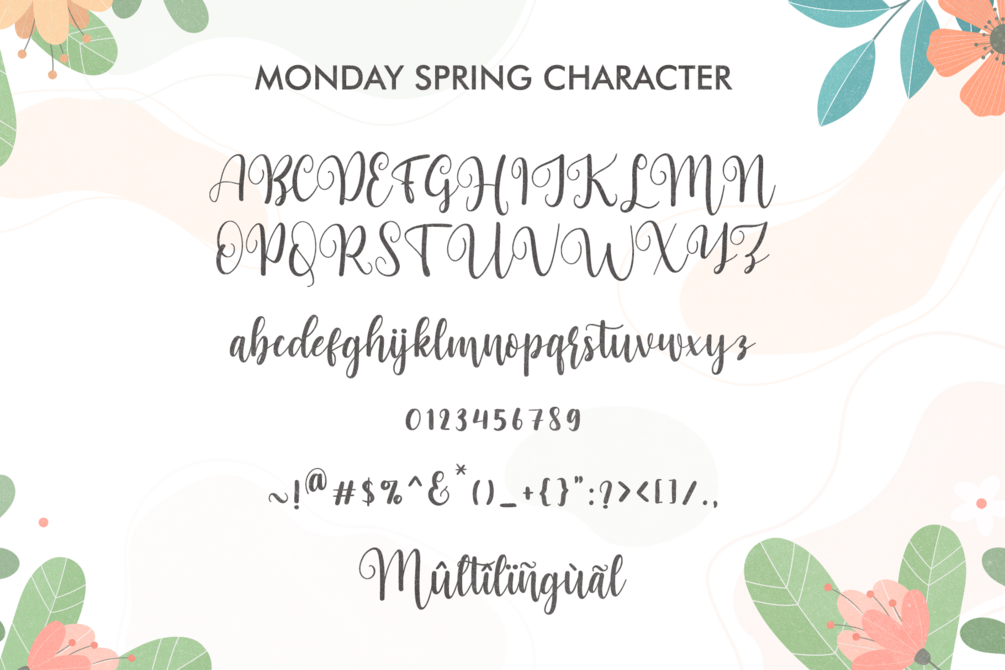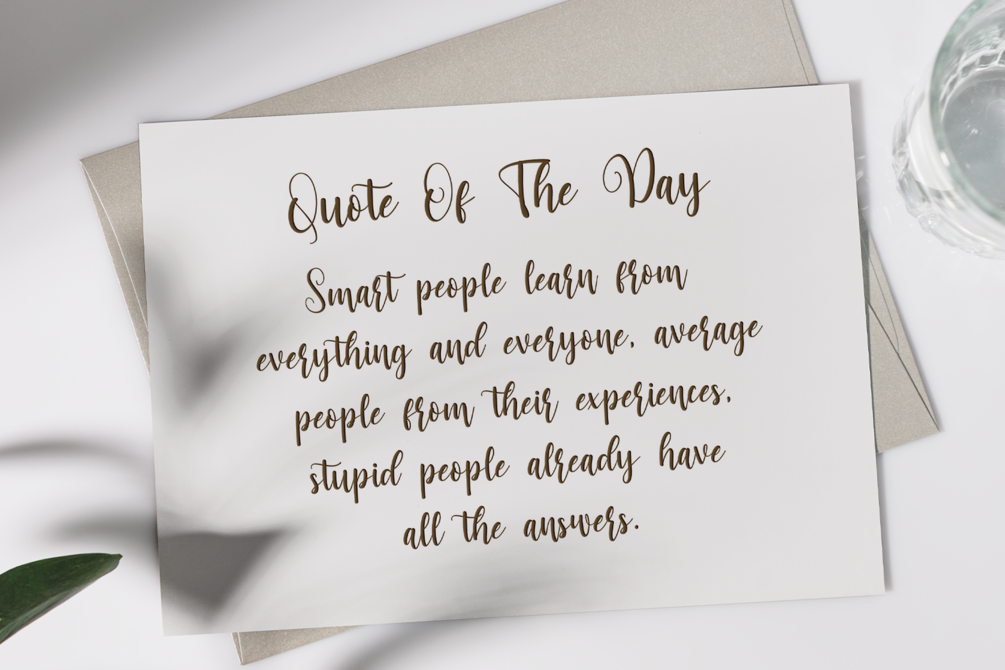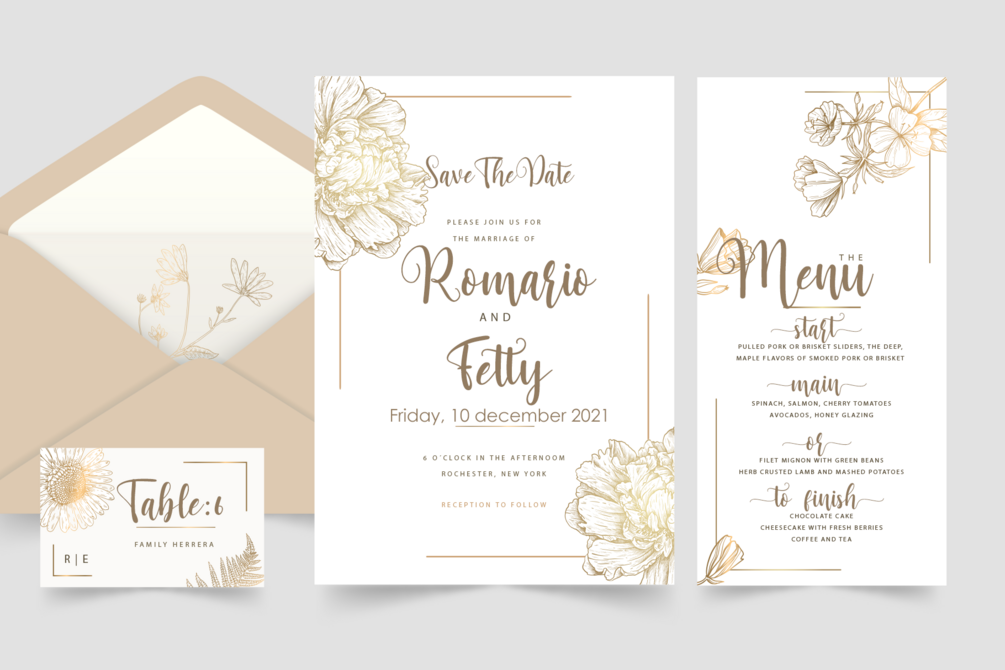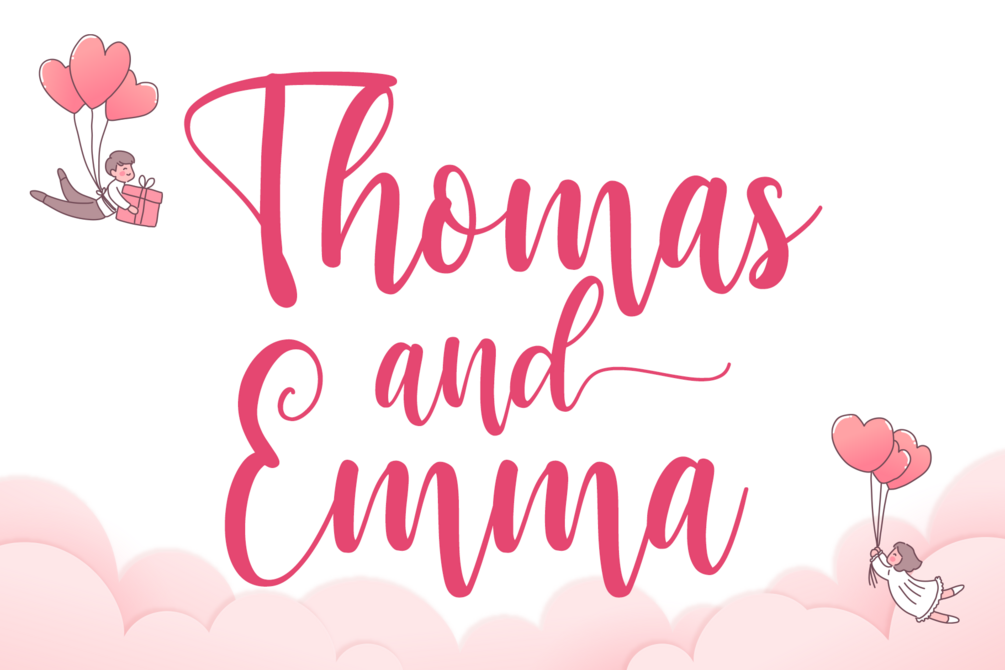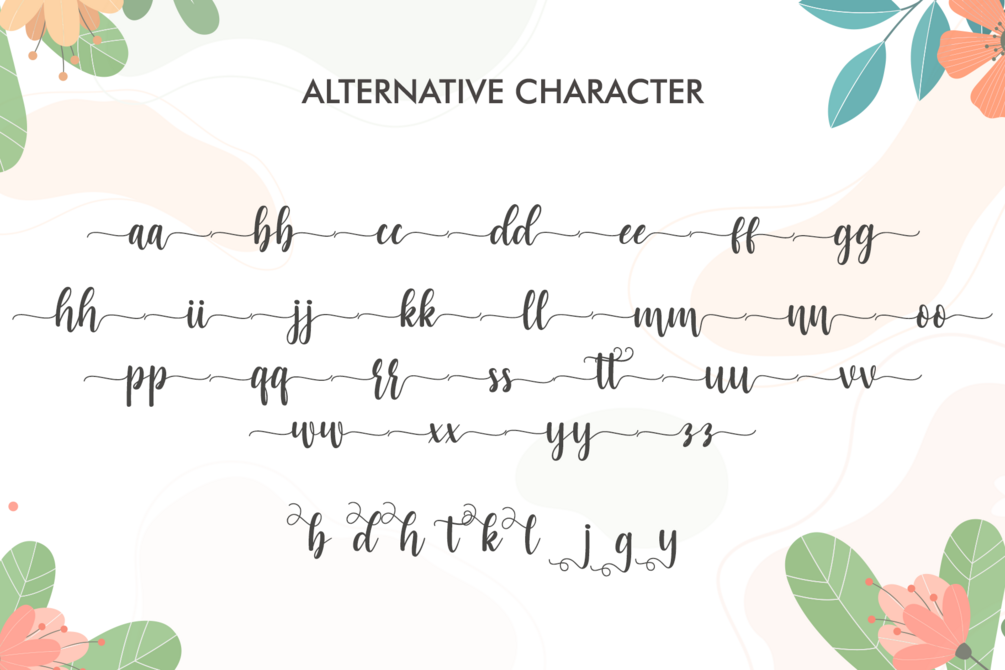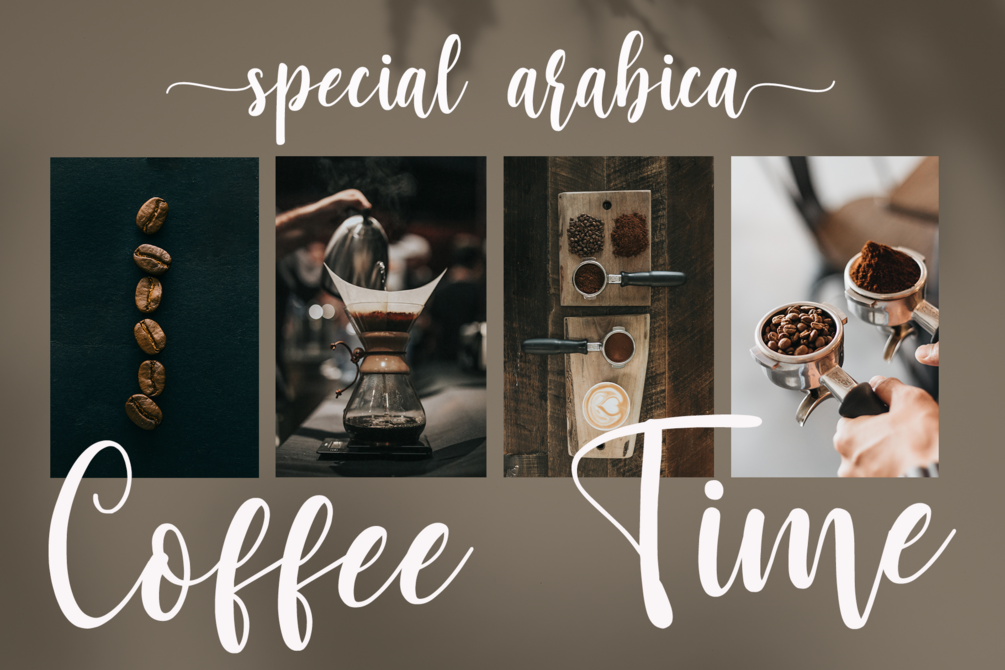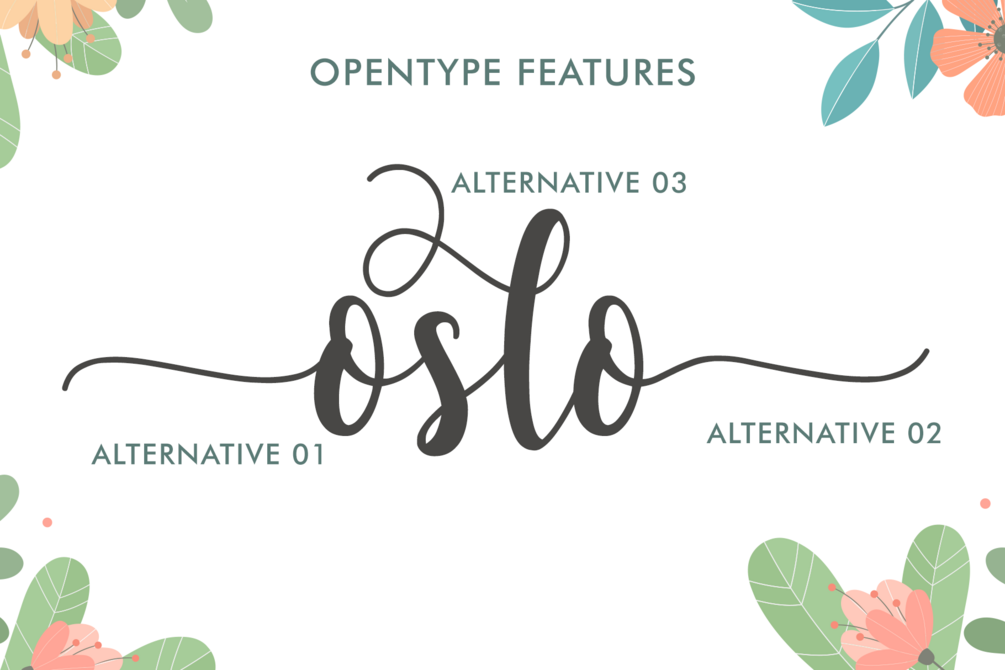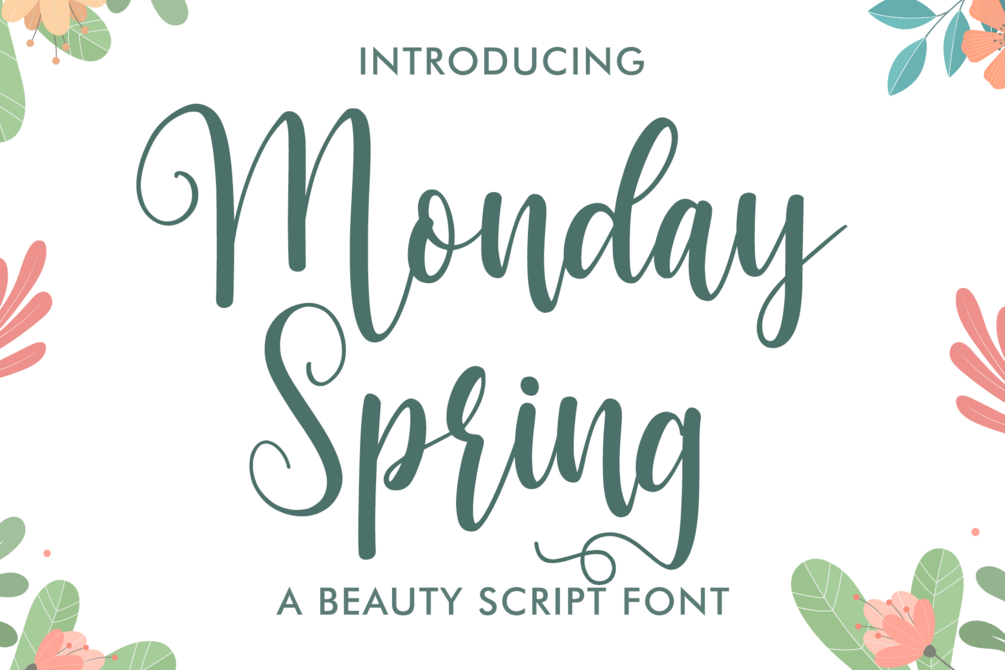
π· Monday Spring β Elegant & Expressive Script Font
Monday Spring is an elegant and expressive script font with a bold personality and charming hand-lettered style. Expertly designed to make your creations stand out, this font brings a touch of beauty and sophistication to any design project.
Perfect for wedding invitations, love-themed designs, mugs, Christmas cards, posters, branding, and more, Monday Spring adds a graceful and romantic flair that captures attention instantly.
- Multilingual Support
- Alternate Characters
- Ligature Characters
Add a touch of charm and creativity to your next project with Monday Spring Script Font β where elegance meets expression.